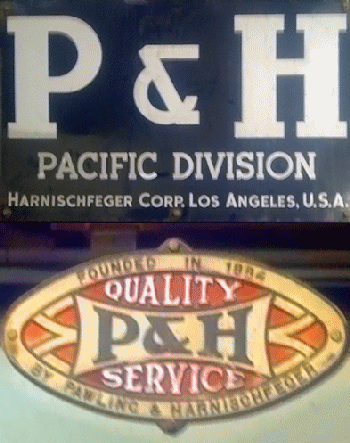
Very nice and expressive. But I would make use of the Lowercase, don´t leave it empty...for example to create an Uppercase alternates? That would be beneficial.
Following up on Magic Sam's suggestion I have added a lower case. I thought that a fully decorated l/c would be too OTT, so have opted for a minimilist approach that I think works ok with the u/c ... or could be used on its own.
@p2pnut: I had a look through the fonts that I have downloaded and compared the lowercase of the version of Thursday 17th September, 11:25 PM 2009 with the lowercase of the version of Wednesday 9th September, 11:34 AM 2009.
Hopefully you still have the version of Wednesday 9th September, 11:34 AM 2009 archived in FontStruct bricks format. If so, maybe you could have two fonts, Art DECOrated and Art DECOrated alternates (or whatever name you choose) so that those elegant lowercase designs that you published are still available.
I particularly like the f, j, k, q, v, x, y and z of the lowercase in the version of Wednesday 9th September, 11:34 AM 2009.
intaglio's comment "I'd love to see you do a full-on deco job with triangles and zigzags and deer and streamlines and..."
... and this wonderful ampersand that I spotted whilst googling for ideas ...
Every word you type with this font looks wonderful. I love it!
Following up on Magic Sam's suggestion I have added a lower case. I thought that a fully decorated l/c would be too OTT, so have opted for a minimilist approach that I think works ok with the u/c ... or could be used on its own.
Hopefully you still have the version of Wednesday 9th September, 11:34 AM 2009 archived in FontStruct bricks format. If so, maybe you could have two fonts, Art DECOrated and Art DECOrated alternates (or whatever name you choose) so that those elegant lowercase designs that you published are still available.
I particularly like the f, j, k, q, v, x, y and z of the lowercase in the version of Wednesday 9th September, 11:34 AM 2009.
I have made another font (single DECOr) which incorporates that particular lc with the one used for triple DECOr.